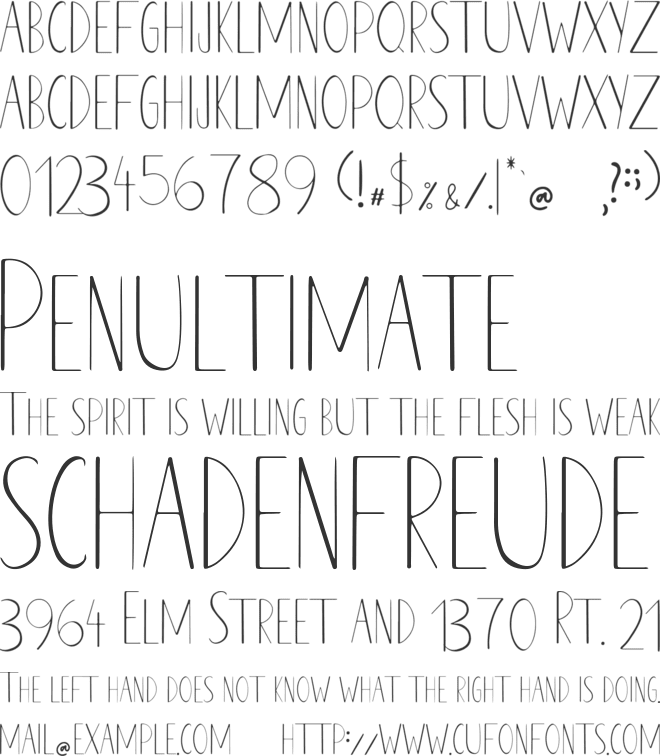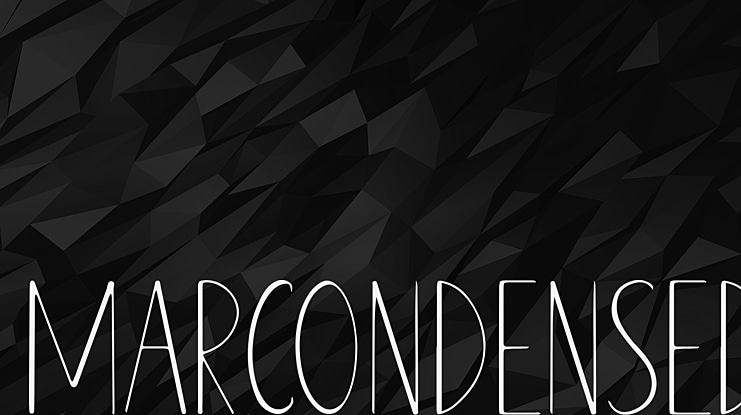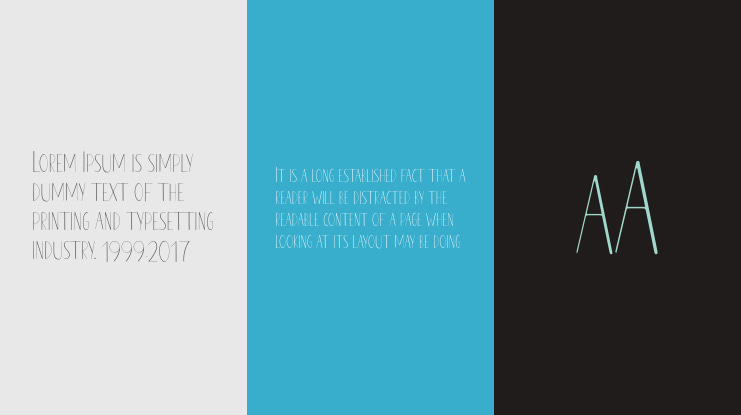
MARCONDENSED Font
Khairil Anwar
Marcondesed, a friendly condensed font that carefully made to match with any kind of design projects. With its simple yet elegant style, this font will make your projects catch anyone's attention.
Marcondensed Font best uses for invitations, wedding design, quotes, poster, cover, branding, logotype, social media posts and many more. Make it simple with Marcondensed!